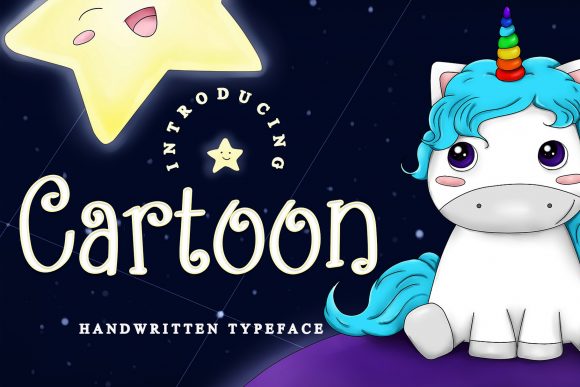
Introducing Cartoon: A Whimsical Script Font for Stylish Expression
Embark on a typographic adventure with Cartoon, a charming and delightful handwritten font that captivates the senses with its playful elegance. This script font, meticulously crafted by the skilled artisans at Giart Studios, is more than just a collection of letters and symbols; it's an invitation to express your creativity and leave a lasting impression.
With its dainty strokes, sweet curves, and whimsical charm, Cartoon possesses a captivating allure that draws the eye and sparks imagination. Its timeless design blends harmoniously with a wide array of projects, from fashion websites to personal blogs, social media posts to branding materials. Cartoon has the innate ability to transform the ordinary into the extraordinary, adding a touch of enchantment to every word it graces.
Step into a world of endless possibilities with Cartoon, where your words take on a life of their own. This versatile font is the perfect companion for expressing your unique style and captivating your audience. Whether you're creating captivating logos, designing eye-catching posters, or crafting heartfelt invitations, Cartoon's playful personality shines through, leaving an indelible mark on the hearts of those who behold it.
Immerse yourself in the world of Cartoon and discover a symphony of typographic delights. Its neat and simple style makes it effortlessly legible, ensuring that your message is conveyed with clarity and impact. Whether you're crafting digital designs or creating tangible works of art, Cartoon's versatility knows no bounds.
Join the ranks of creative visionaries who have embraced Cartoon's magic. Let your imagination soar as you explore the endless possibilities this enchanting font presents. With Cartoon, every project becomes a masterpiece, every word a work of art, and every design a reflection of your unique personality.